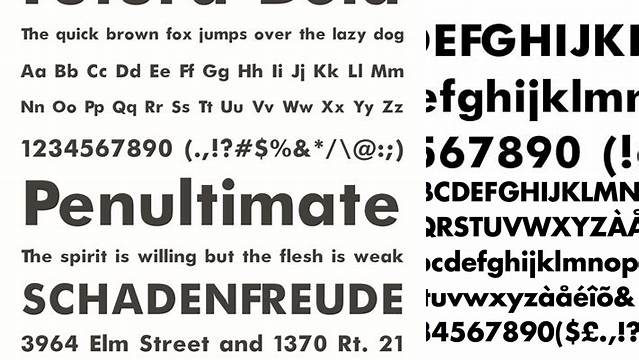
What is Futura Bold? A Deep Dive into this Classic Font
Alright, let's get down to brass tacks. Futura Bold is a member of the Futura family, a geometric sans-serif typeface designed by Paul Renner and released in 1927. Yeah, that's right, it's been around for ages, but trust me, it's aged like a fine wine! The Futura family is celebrated for its clean lines, geometric shapes, and overall modern aesthetic. Futura Bold, specifically, is a heavier weight within the family, making it perfect for headings, titles, and any text that needs to grab attention. It's all about making a statement, you know?
Think of it like this: Futura Bold is the strong, confident sibling of the Futura family. It maintains the same core characteristics – the circular 'o's, the pointed 'a's, and the overall sense of balance and harmony – but with a bolder presence. This makes it incredibly versatile. You can use it for everything from website design and logos to print materials like posters and brochures. The font's timeless design ensures it will continue to be a popular choice for many years to come.
So, why is Futura Bold so popular? Well, its clean and simple design makes it incredibly readable, even at smaller sizes. This is a HUGE plus when you're designing for the web or for print materials where space is at a premium. Furthermore, its geometric forms give it a contemporary feel, which makes it suitable for both formal and informal applications. Whether you're creating a sleek corporate identity or a playful design for a children's book, Futura Bold can adapt to the job.
Another reason for its enduring popularity is its extensive character set and wide range of weights and styles. The Futura family offers a variety of options, from light and extra-light weights for body text to bold and extra-bold weights for headlines. This variety allows designers to create a cohesive and visually appealing design system using a single typeface. The flexibility offered by Futura Bold makes it a favorite for creating a design that communicates across various mediums.
But the best part? It's incredibly versatile! You can use it for pretty much anything. Need a headline that pops? Futura Bold. Designing a logo that screams modern? Futura Bold. Creating body text that's easy on the eyes? Maybe not Futura Bold itself, but a lighter weight of the Futura family! It's the workhorse of the design world, and it's earned its place.